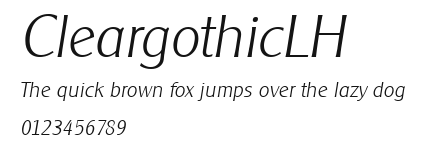
CleargothicLH.ttf is a modern, elegant sans-serif font designed for ultimate readability and visual harmony. Perfect for branding, headlines, web design, and print materials.